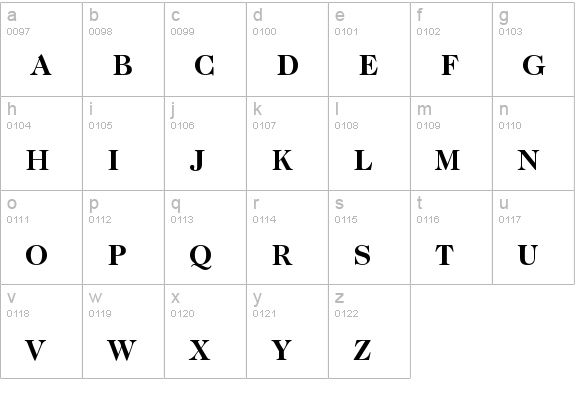
Caslon335Smc-Bold Font Details
Caslon335Smc-Bold is a strong, high-contrast variant in the Caslon335Smc typeface family \xE2\x80\x94 well suited to headlines, attention-grabbing titles, and strong calls-to-action.
Caslon335Smc-Bold is a classic and elegant serif font that exudes sophistication and timelessness. Its bold weight adds a strong and commanding presence to any design, making it perfect for headlines, titles, and other impactful text. The well-balanced letterforms and intricate details showcase the craftsmanship and attention to detail that went into creating this typeface. What makes Caslon335Smc-Bold even more appealing is that it is available for free download at FontsMarket.com. This means that you can easily access this high-quality font for all your creative projects without any cost. Whether you're designing a poster, logo, or website, Caslon335Smc-Bold will surely elevate your work and make a lasting impression on your audience. Download this font today and experience the beauty and versatility of Caslon335Smc-Bold for yourself.